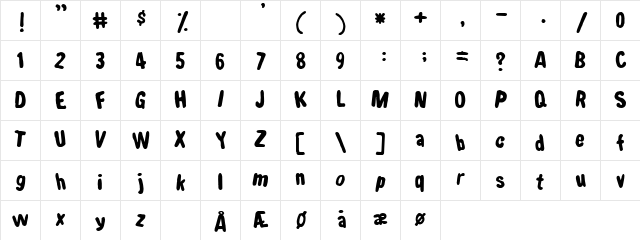
Shake that booty Regular Free Font
Shake that booty Regular
Shake that booty Family
Design Context for Shake that booty
Shake that booty is a composed and adaptable typeface that performs quietly and consistently across a wide range of design contexts.